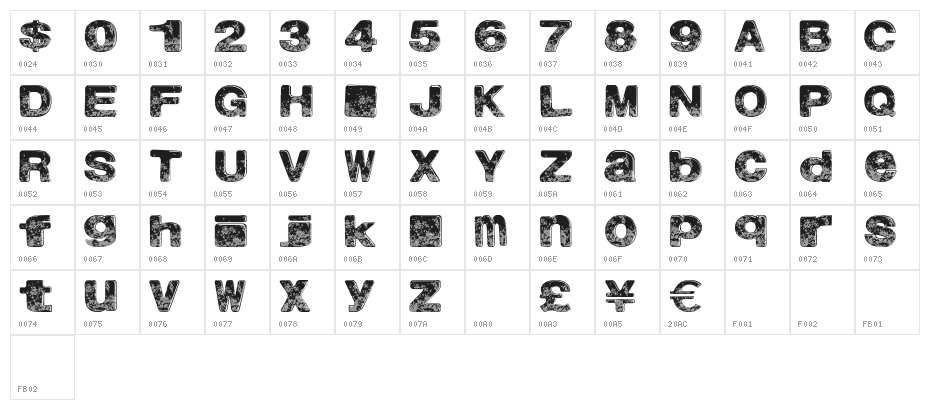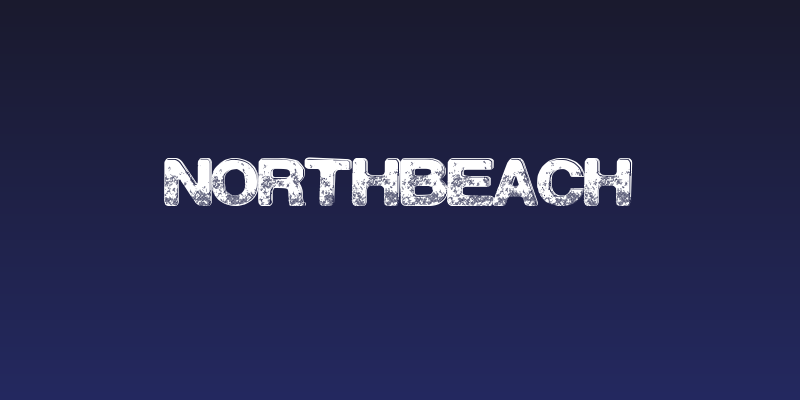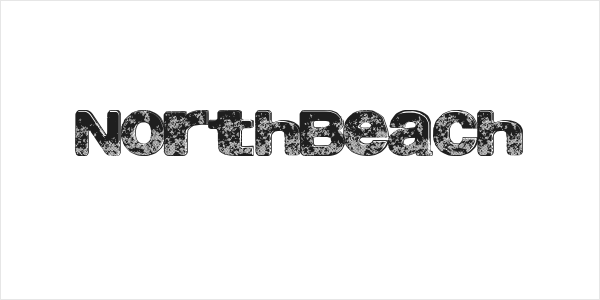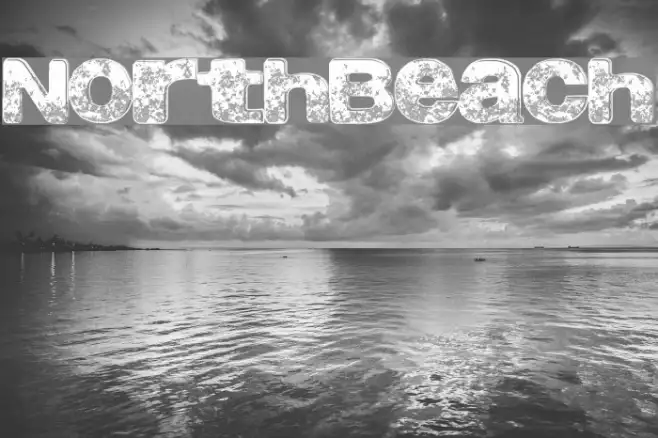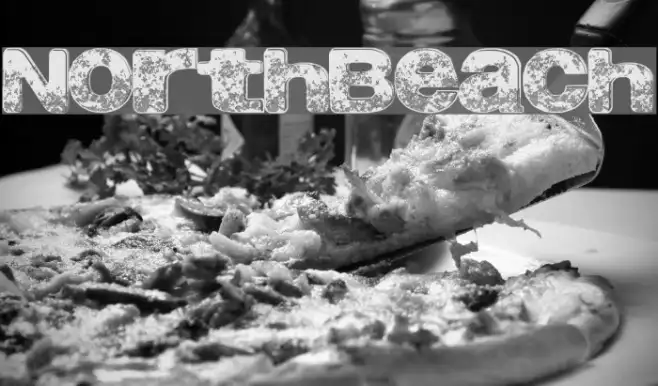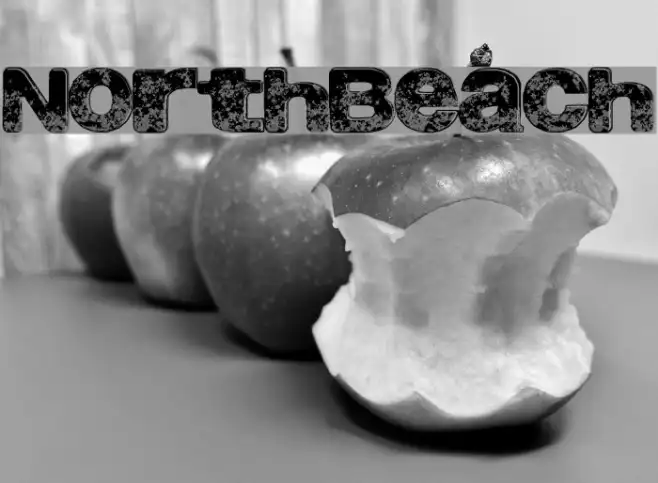
NorthBeach Font
NorthBeach Description
This font features a bold, distressed style with a textured appearance that gives it a rugged, weathered look. The characters are thick and blocky, with a consistent width and a slightly rounded shape. The distressed effect is prominent, creating a vintage or grunge aesthetic that adds character and depth to the text. The uppercase and lowercase letters maintain uniformity in style, while the numerals and special characters follow the same design principles, ensuring a cohesive appearance across all elements. This font is ideal for projects that require a bold statement or a touch of nostalgia.